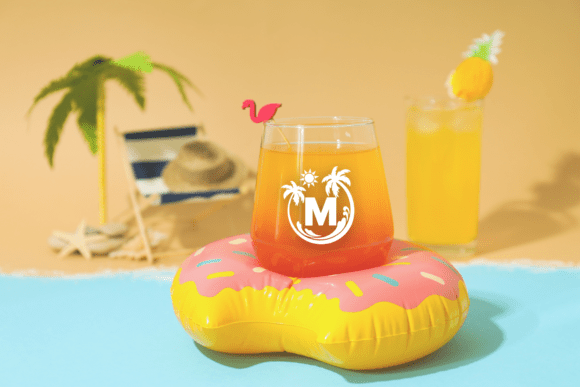
Hello Summer Monogram Font
Hello Summer Monogram is a versatile and authentic decorative font. You can use these monograms on gift tags, cards, pillows, invitations, wall art, t-shirts, mugs and anything else you can think of.